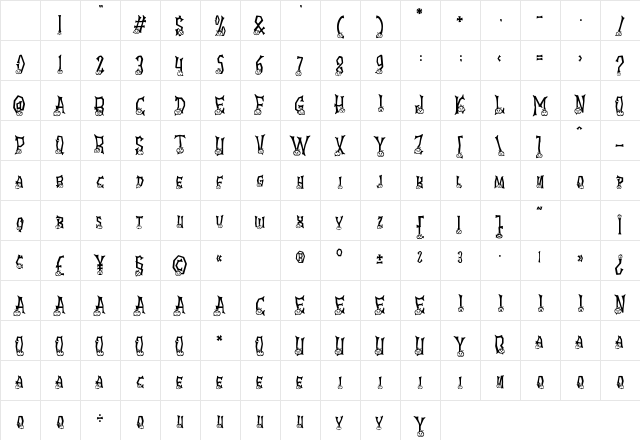
Complete Ghostly Guffaws Pumpkin Regular glyph index. Displaying only characters natively supported by Ghostly Guffaws Pumpkin Regular font.
Ghostly Guffaws Pumpkin is a composed and adaptable typeface that performs quietly and consistently across a wide range of design contexts.